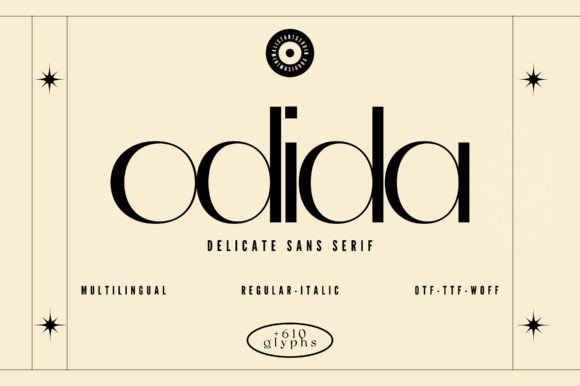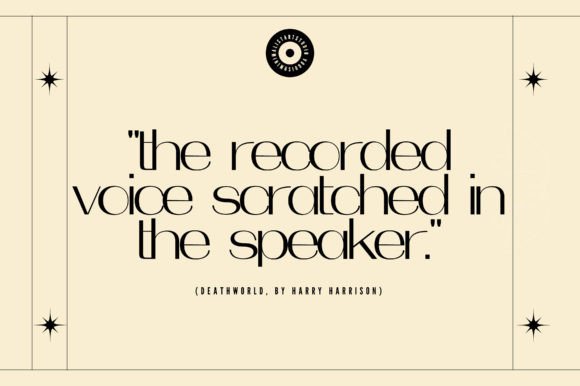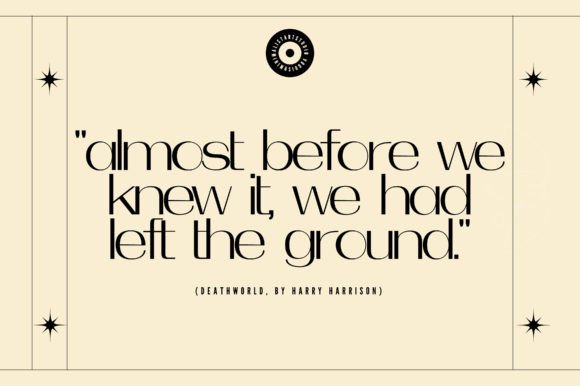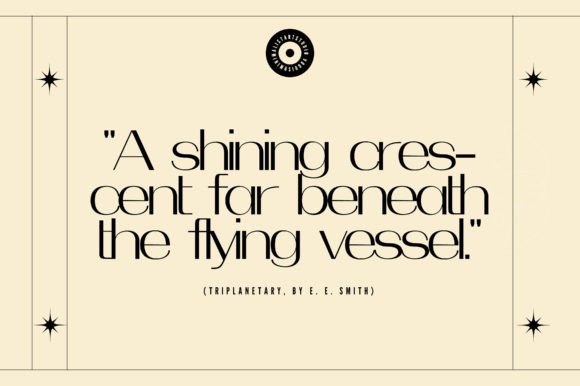
Odida Font: Modern & Elegant Sans Serif for Branding & Logo Design
About the Odida Font
From logos to headlines, the Odida Font is the perfect choice for making a lasting impression. The Odida is a beautiful Sans Serif font. This stunning font is designed to be a sophisticated, chic, and elegant font, perfect for creating stunning designs.
The Odida font is perfect for fashion and beauty products, luxury brand advertising, and more.
Odida excels in headline applications, short-form text on branding materials, and elegant packaging designs. Its sophisticated nature makes it ideal for high-end products and luxury campaigns. However, its refined details may become less legible in extended body copy or UI elements, where a more neutral sans-serif would be preferable.
Pairing Odida effectively requires careful consideration. A classic serif like Garamond or a geometric sans-serif such as Futura can provide a pleasing contrast, grounding the Odida’s elegance with a sense of stability. For a more modern feel, consider pairing it with a clean, minimalist sans-serif like Lato.
Odida possesses a distinctly elegant and sophisticated personality, lending itself to brands that project luxury, refinement, and timeless quality. Its chic aesthetic is best suited to minimalist designs where it can shine as a statement piece, rather than a workhorse font.
Odida Font Usage Examples